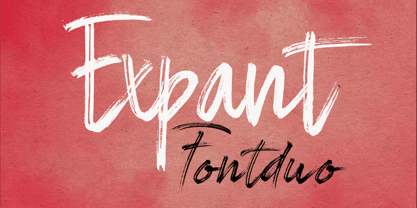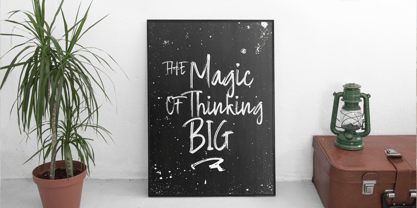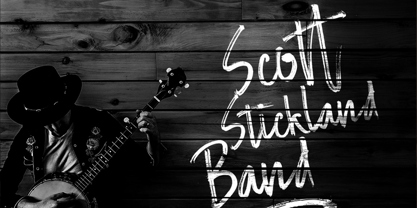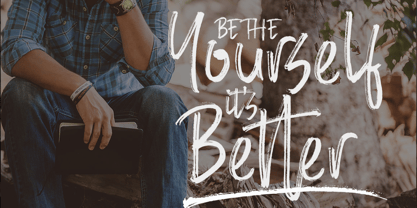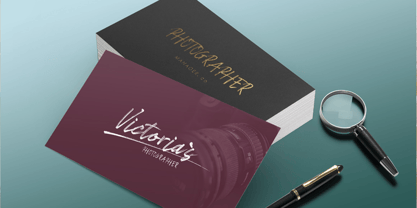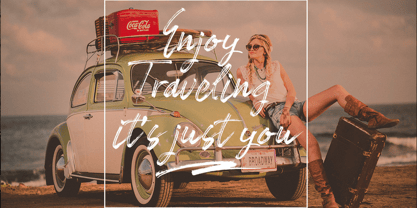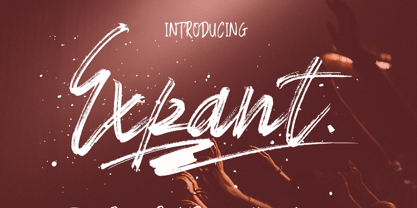
Expant
by Jorsetype
The Expant Font Family was designed by Ront Jorse and published by Jorsetype. Expant contains 2 styles and family package options. More about this family
Expant is a dynamic and expressive brush script typeface designed to capture the energy of natural hand lettering. Inspired by the fluid movement of brush strokes, Expant combines artistic character with modern versatility, making it suitable for branding, packaging, social media graphics, apparel design, posters, invitations, and creative editorial projects.
The family includes both Upright and Italic styles, offering designers greater flexibility in creating visually engaging typography. Each character is crafted with organic stroke variations, smooth curves, and authentic brush textures that bring warmth and personality to any composition.
The Upright style delivers confident and balanced lettering with a natural handwritten rhythm, making it ideal for headlines, logos, and signature-style branding. Meanwhile, the Italic style introduces additional movement and elegance, enhancing the sense of speed, spontaneity, and creative expression.
Expant is carefully designed to maintain readability while preserving the raw charm of hand-painted lettering. Whether used for bold promotional materials or sophisticated creative projects, Expant provides a distinctive voice that stands out with authenticity and style.
Key Features
• Brush script design with authentic hand-painted character
• Upright and Italic styles
• Smooth connections and natural flow
• Strong visual impact for display typography
• Suitable for branding, packaging, posters, social media, and apparel
• Multilingual character support
• Optimized for both print and digital applications
Design Personality
Creative • Energetic • Expressive • Artistic • Modern • Authentic • Stylish • Dynamic
Recommended Uses
Logo Design • Product Packaging • Fashion Branding • Music Covers • Posters • Social Media Content • Wedding Invitations • Signature Graphics • Creative Headlines • Merchandising
Designers: Ront Jorse
Foundry: Jorsetype